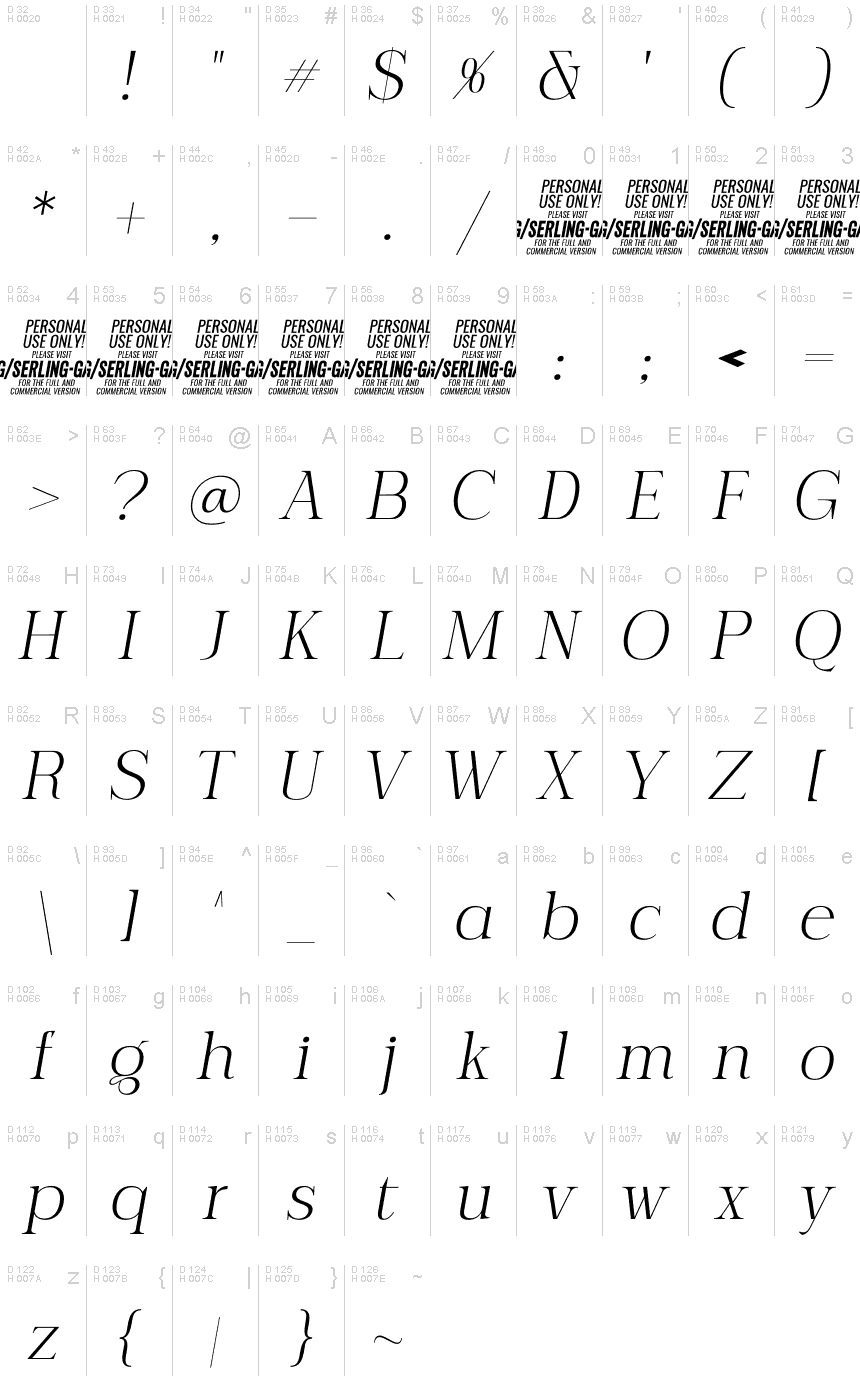
Serling Galleria PERSONAL USE Light Italic
Serling Galleria Light Italic, designed by Mans Greback, is an elegant serif font that exudes sophistication and refinement. Its light weight and italic style lend it a delicate touch, making it perfect for projects that require a subtle yet stylish font. From wedding invitations to fashion magazines, this typeface will add a touch of class to any design. Its serifs give it a classic appeal while its modern look makes it versatile for contemporary designs as well. Use Serling Galleria Light Italic for projects such as restaurant menus, high-end branding materials or luxury product packaging. Let your creativity shine with this exquisite font!
Serling Galleria is a classy, classic serif font that exudes an air of fine art and high-end creativity. With its clear, legible letterforms and modernist inventiveness, Serling Galleria brings a touch of strict creativity to your designs, making them stand out in sophistication.